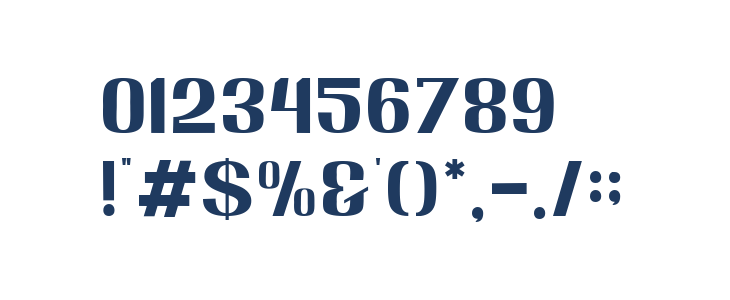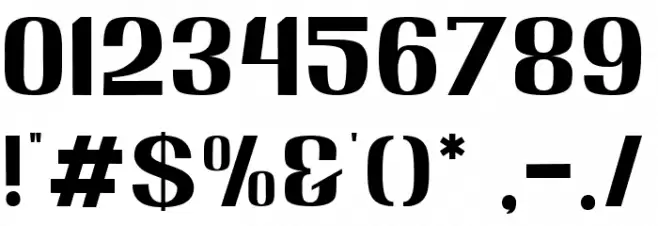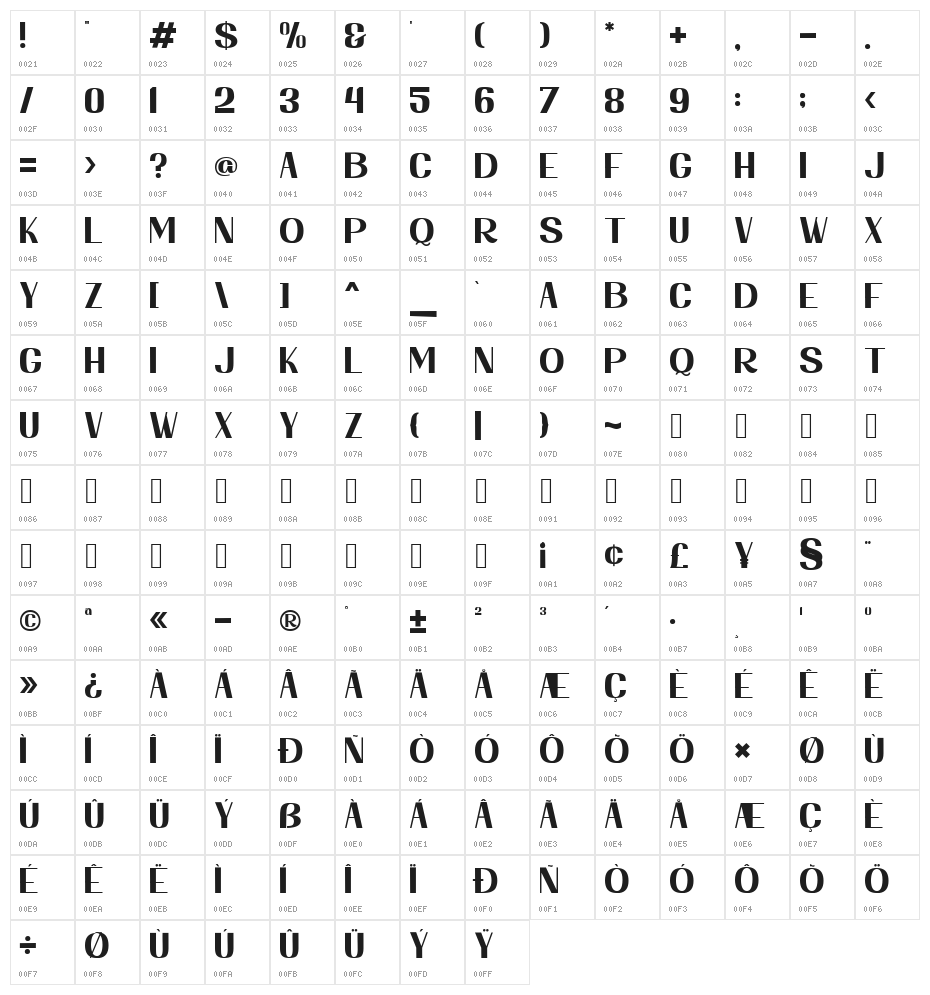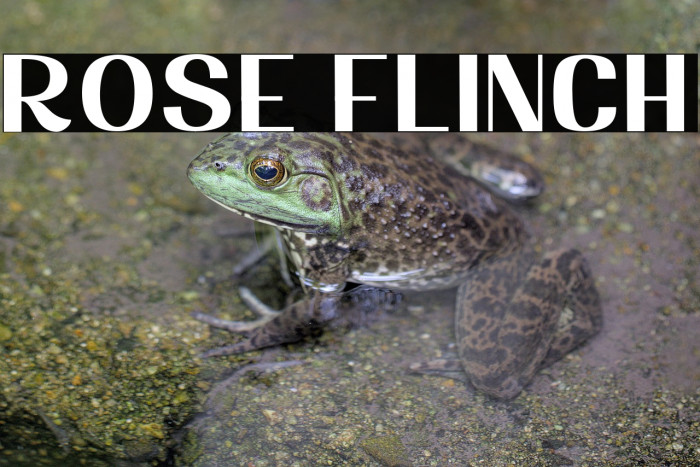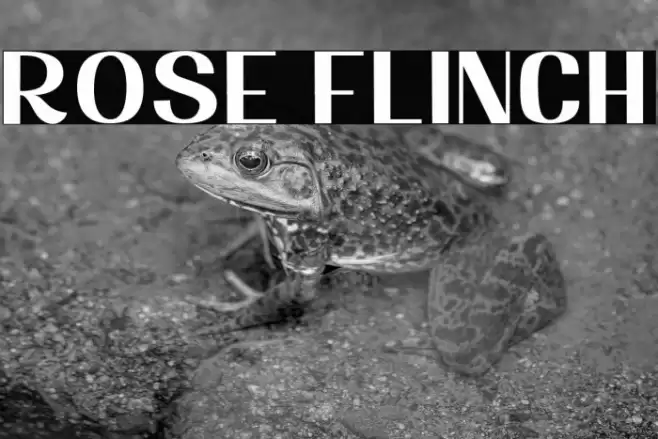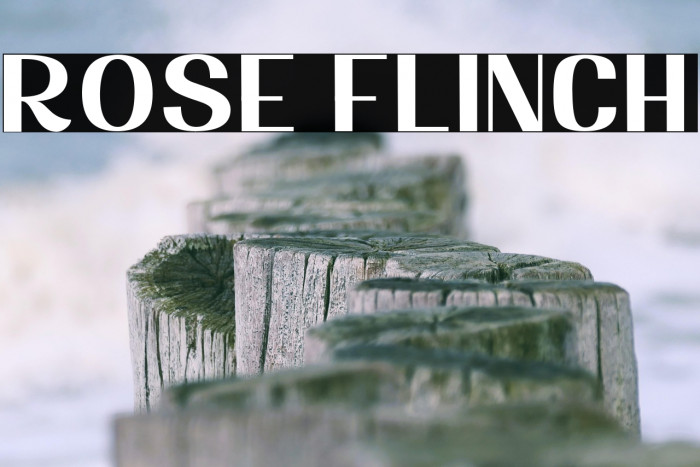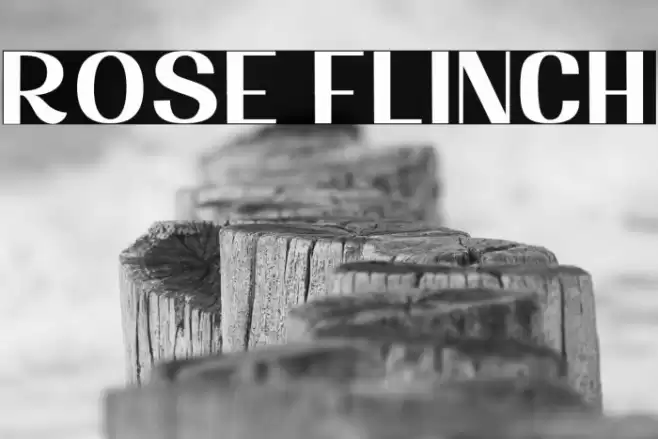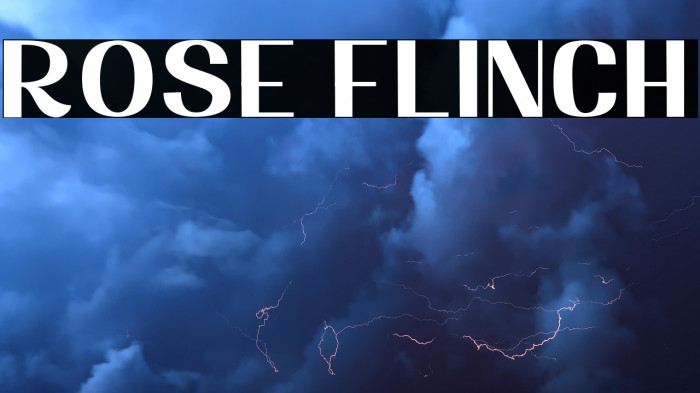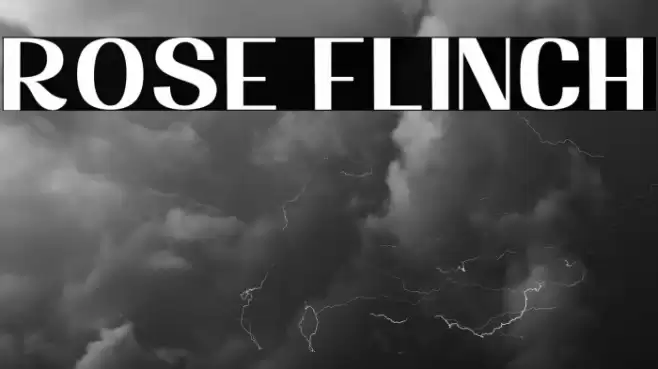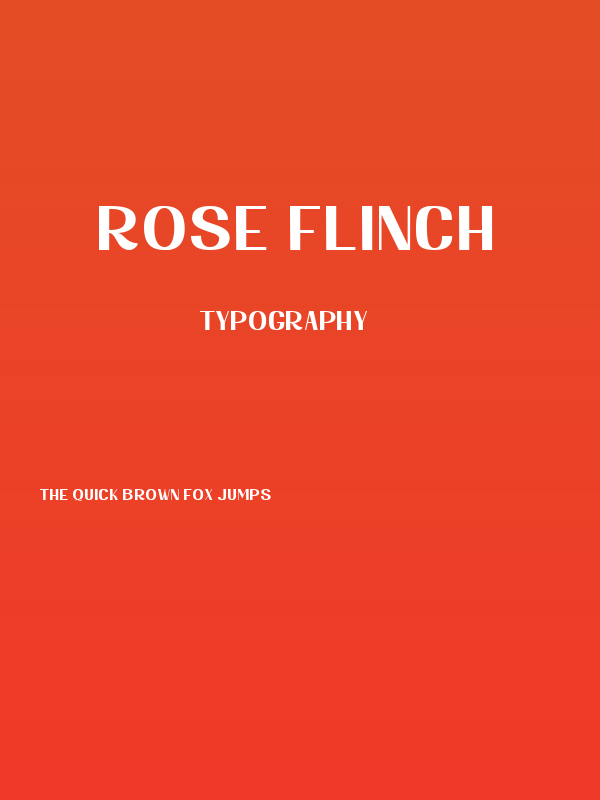
Rose Flinch Font
Rose Flinch Description
This font features a bold and striking design with high contrast between thick and thin strokes, creating a dynamic and eye-catching appearance. The uppercase letters are particularly prominent, with a strong presence that commands attention. The lowercase letters maintain a consistent style, complementing the uppercase with a slightly more condensed form. The numerals are robust and clear, ensuring readability. Special characters are designed with the same boldness, making them stand out effectively. This font is well-suited for projects that require a strong visual impact.
Proposed ProjectsIdeal for headlines, posters, branding, and any design needing a strong visual impact.